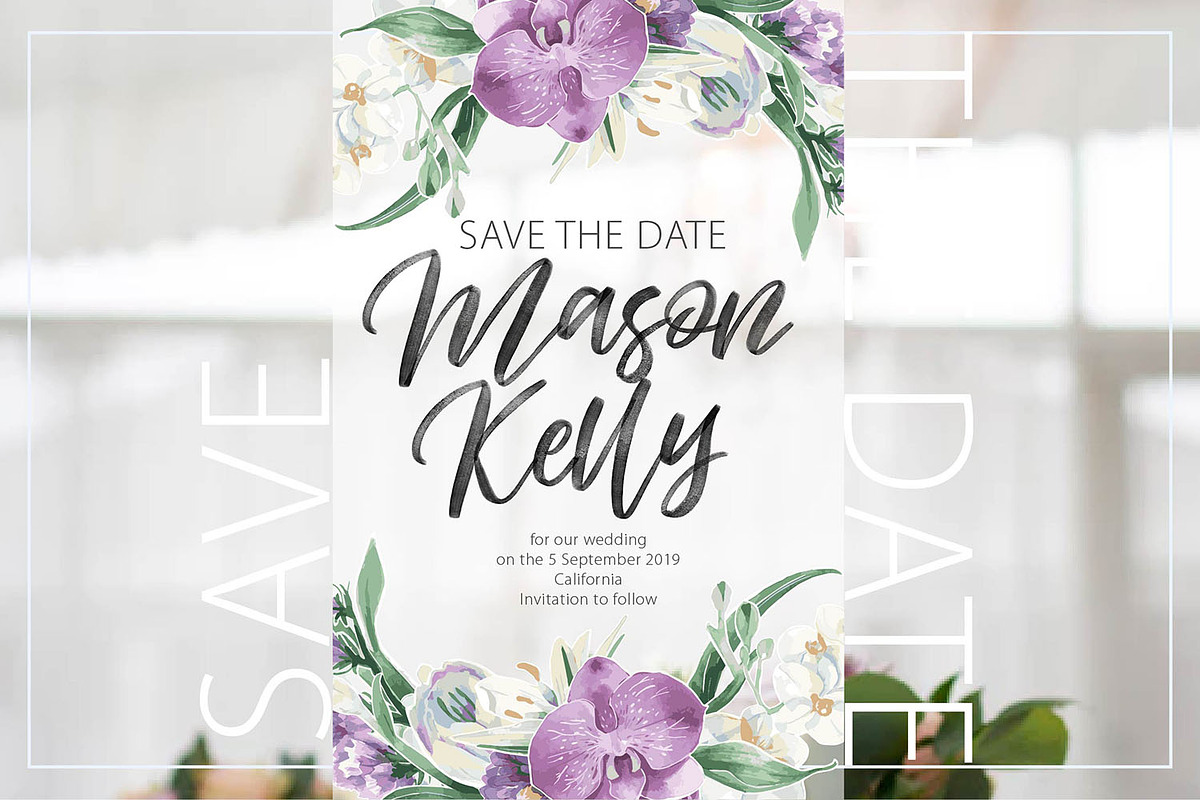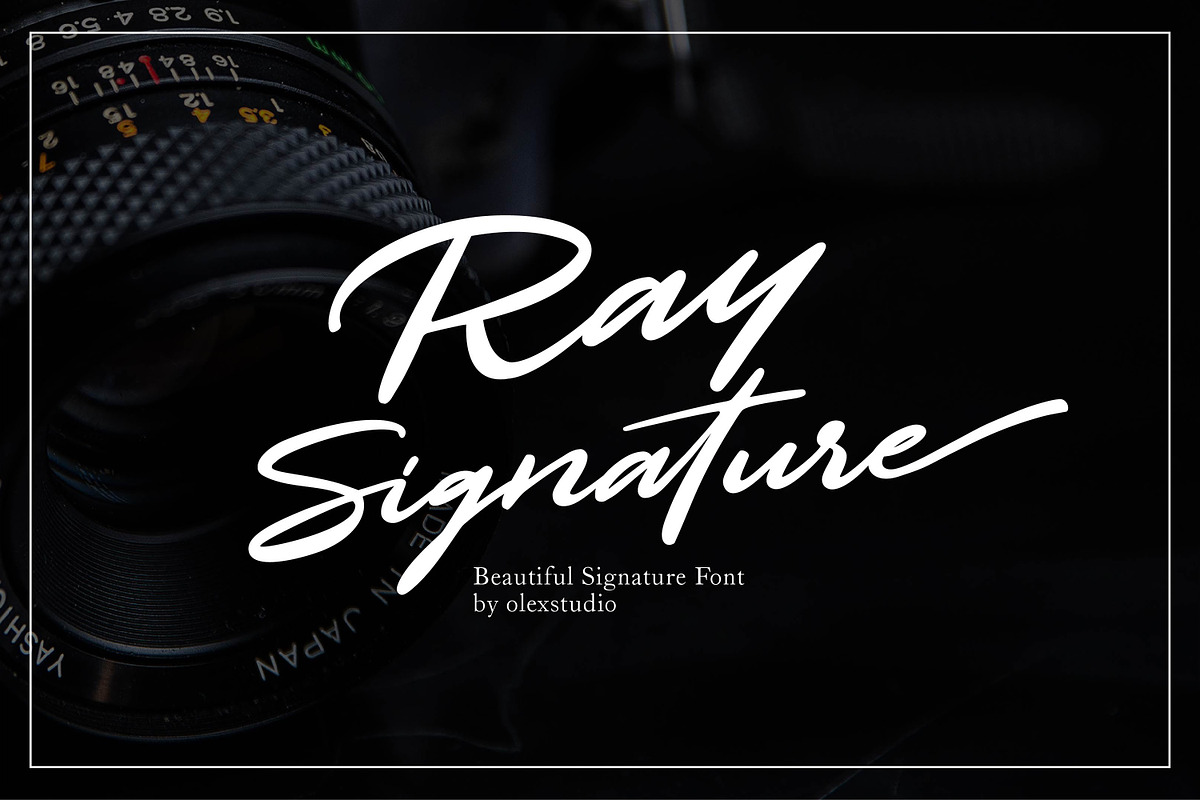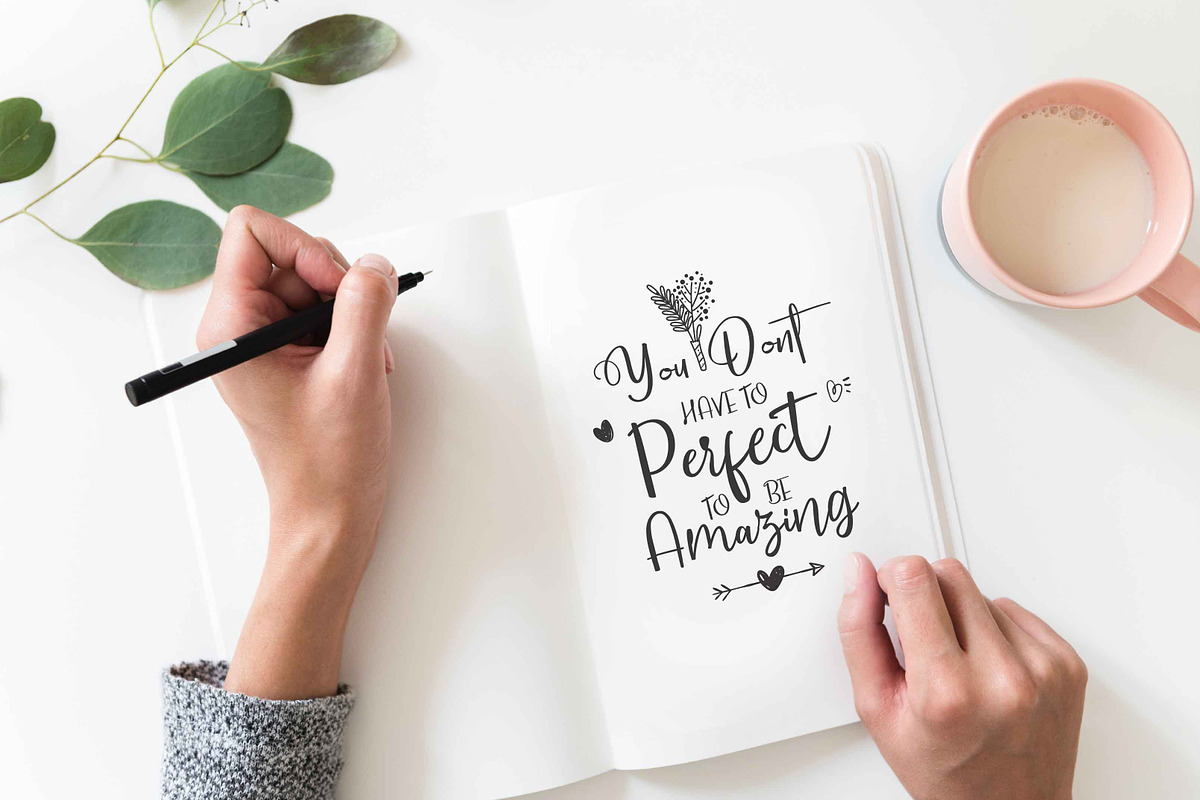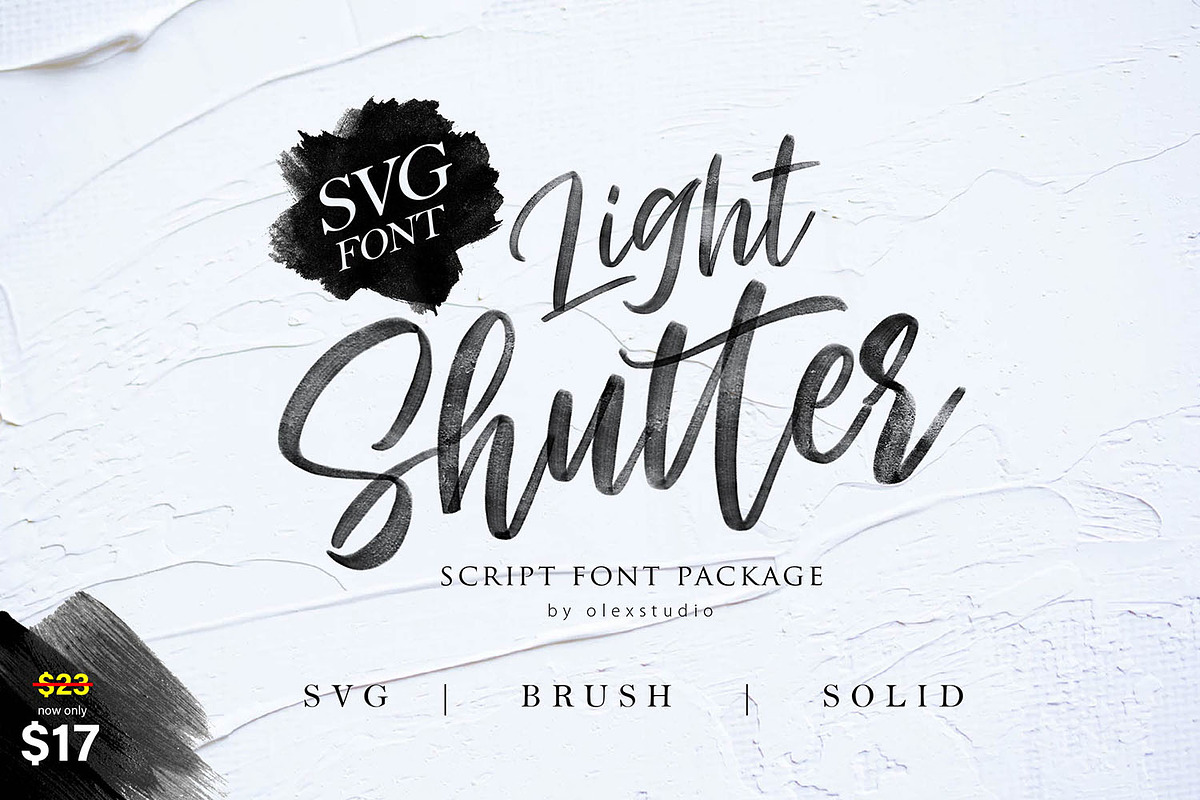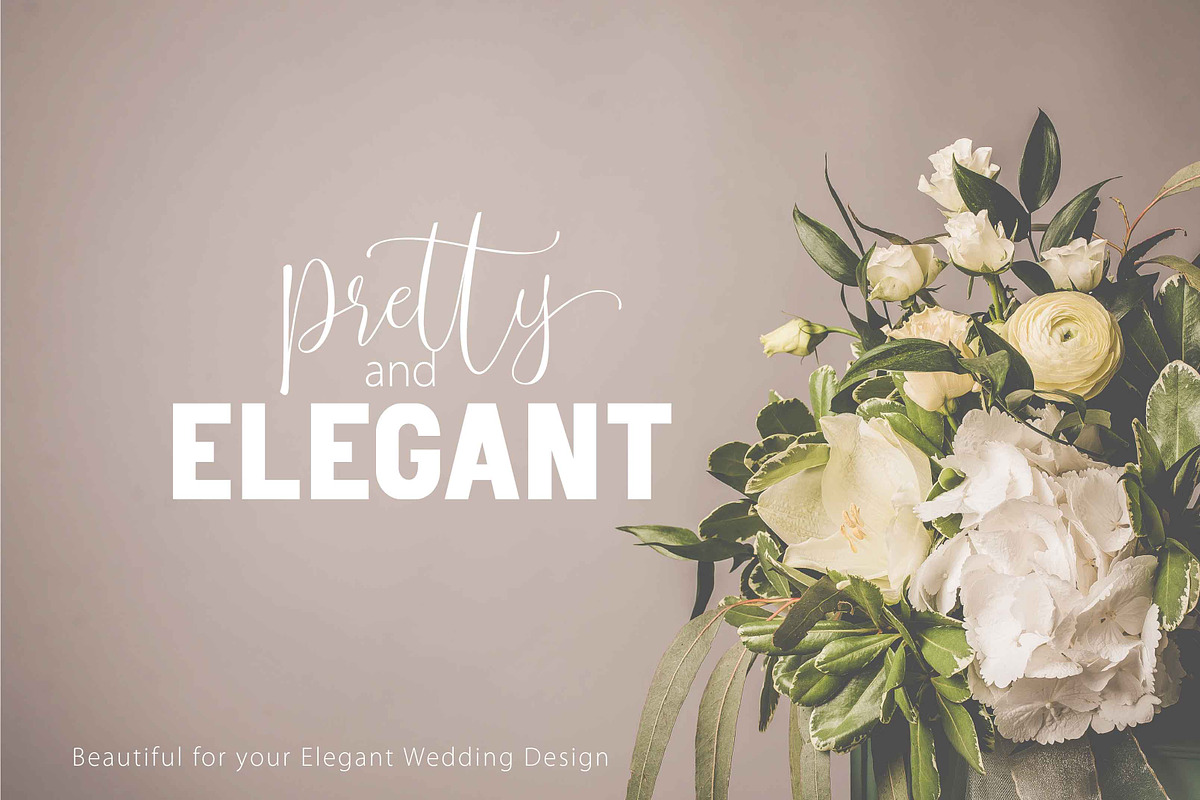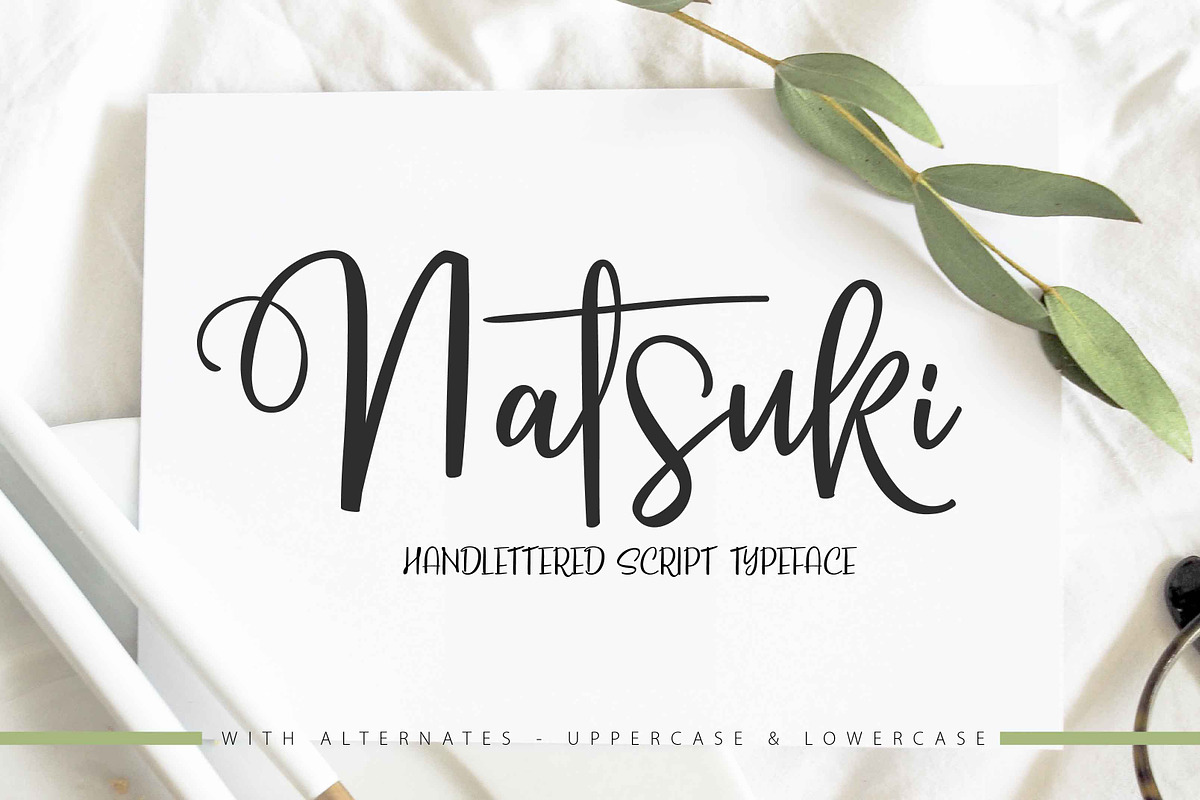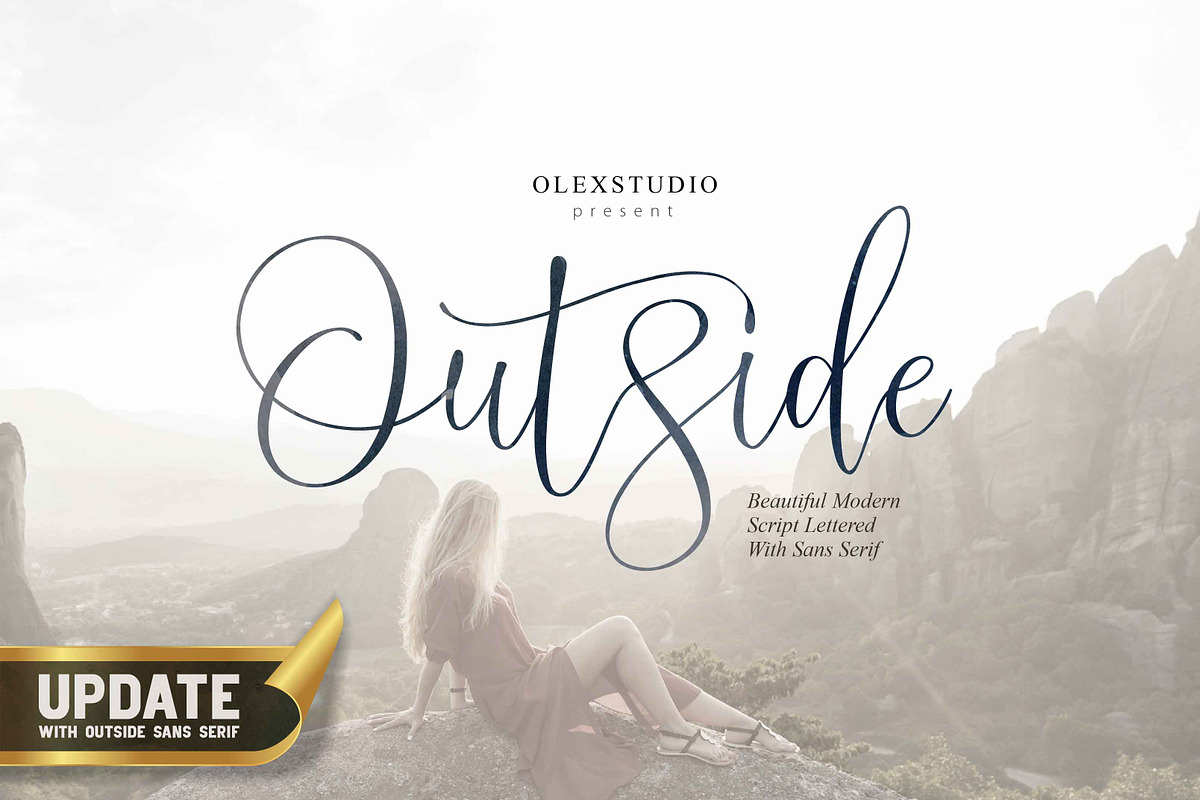
premium FONT BUNDLES
with This Font Bundle will look gorgeous on all your designs, wedding invites, branding materials, logo's, t-shirt, poster, business cards, quotes, Book Cover, Web Logos, Blogs and all project design other.
The font that includes in this bundle is:
- The font that includes in this bundle is: 1.
premium FONT BUNDLES by Olexstudio fits naturally into Branding, posters, packaging, typography.